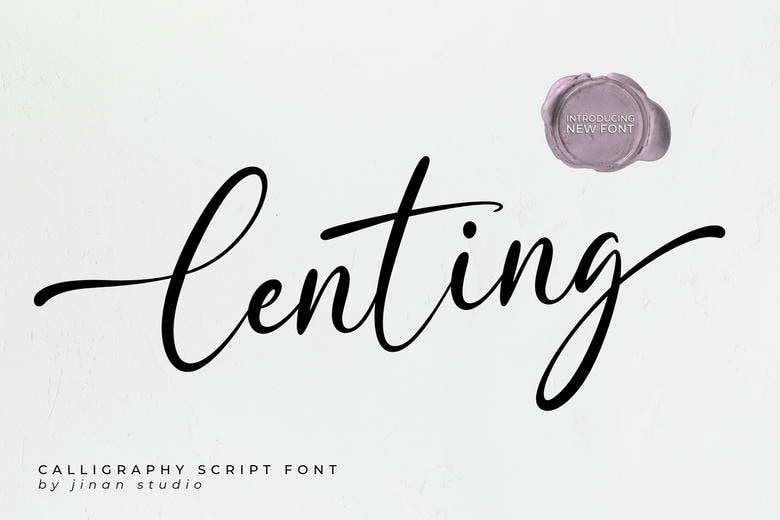
Lenting Font
Lenting is an alluring calligraphic script font crafted with precision and attention to detail. The font exudes a strong sense of classic grace and refinement, brought to life by its beautifully fluid strokes and elegantly flowing curves. A perfect fit for projects ranging from wedding invitations to enchanting logos and upscale branding materials, Lenting imparts an aura of sophistication.
Lenting Calligraphy Script Font